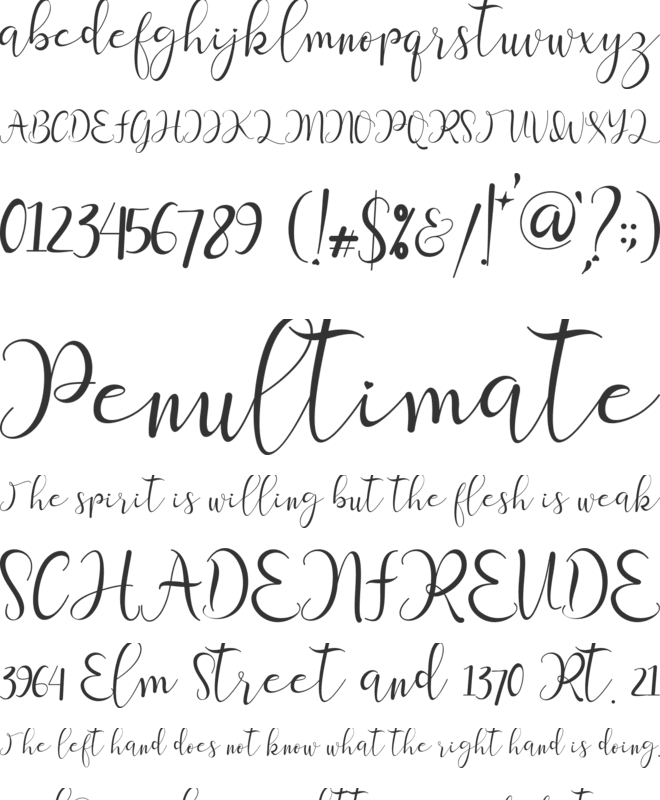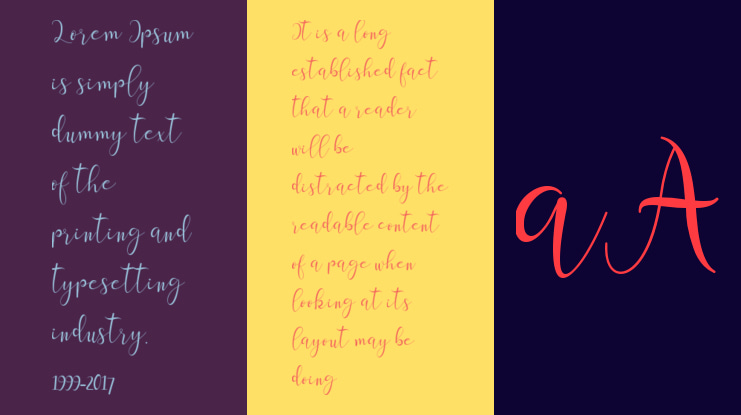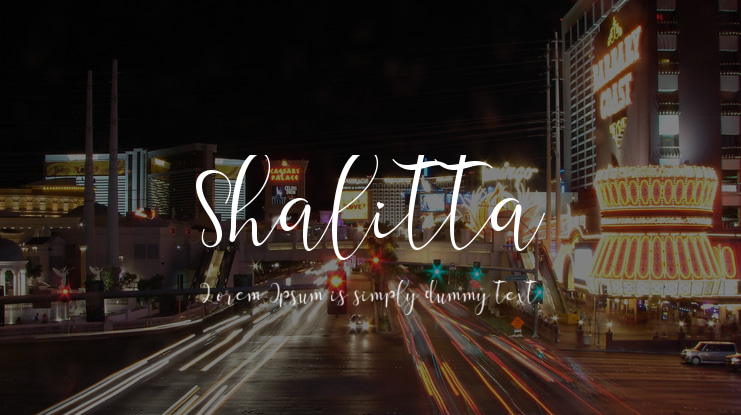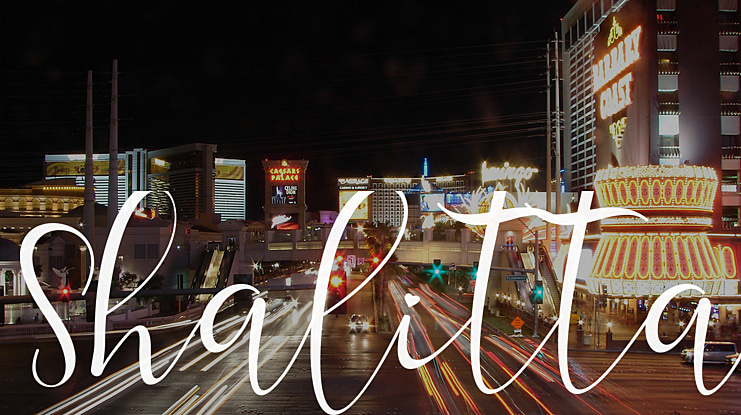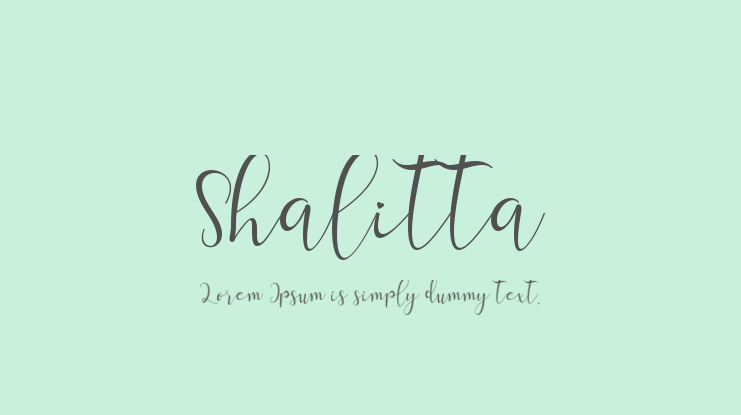
Shalitta Font
Yogaletter 2020 (Isroni Yoga Prasetya)
This font is named Shalitta. This font is made with happy and affectionate feelings. Shalitta is a beautiful, high-quality font. The letters are so unique that they are perfect for all types of work. This font is perfect for weddings, logos, branding, promotion of your products and business, for updates on social media, making quotes, romantic words or anything else.